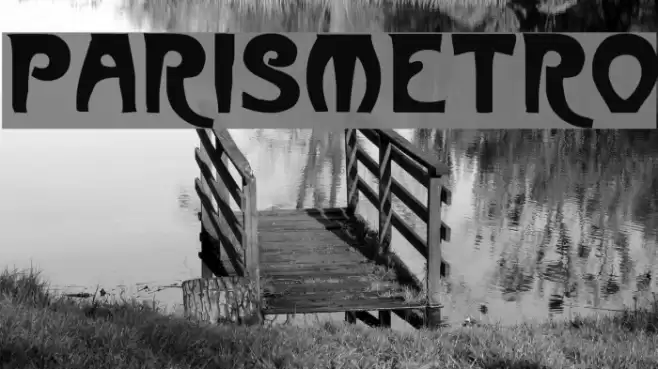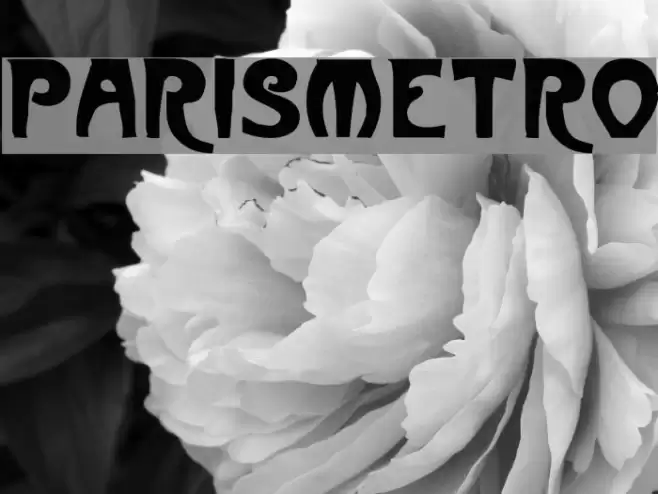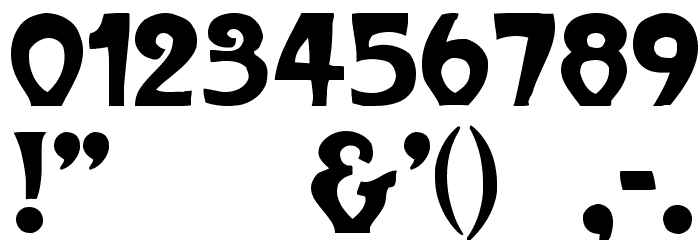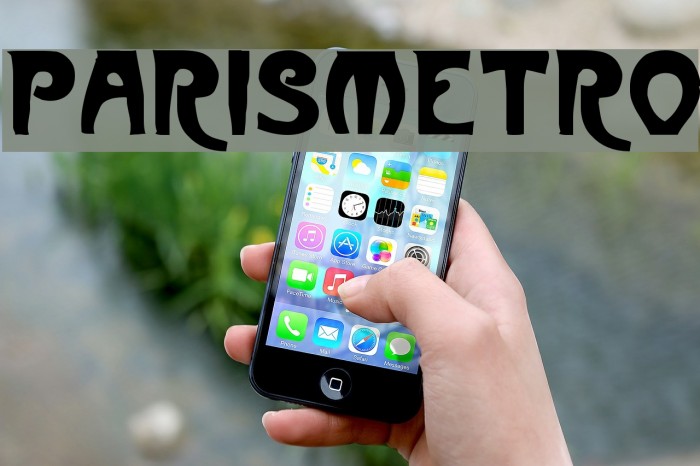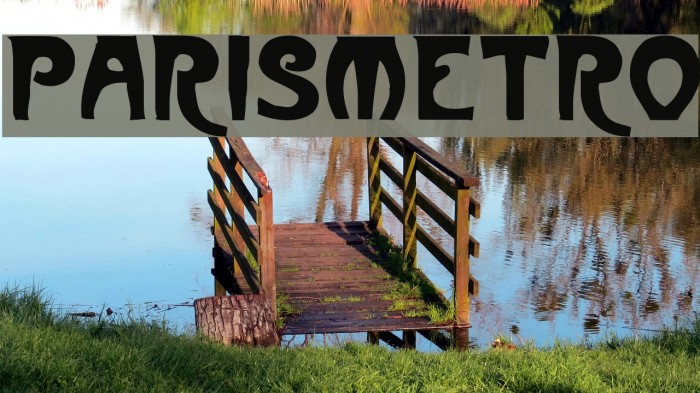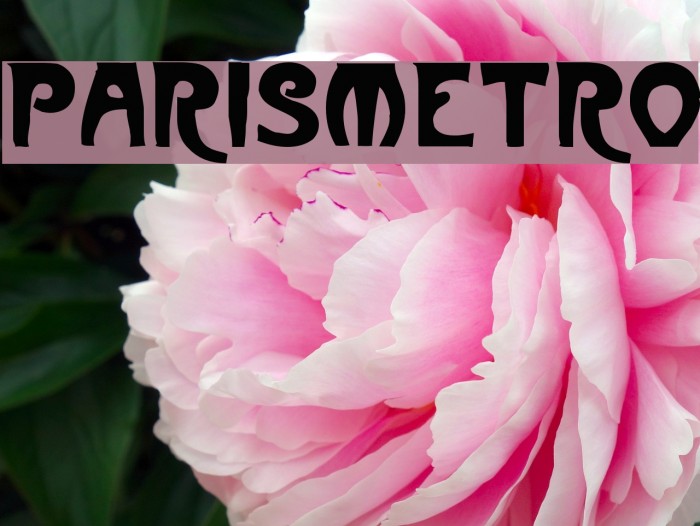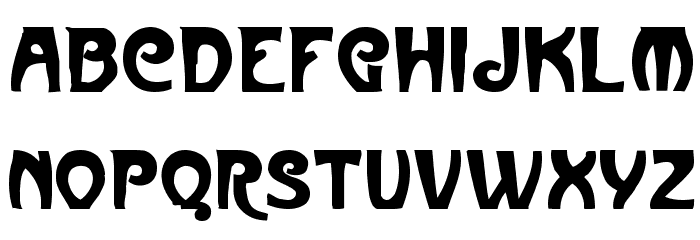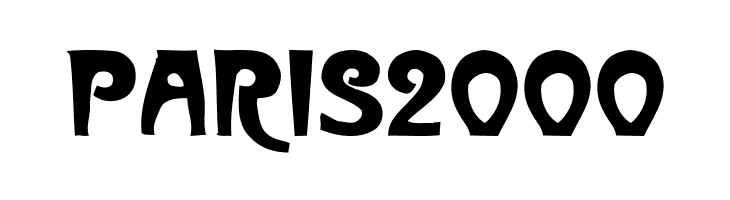
ParisMetro Font
ParisMetro Description
This font features a bold and artistic design with a distinct Art Nouveau influence. The characters are characterized by their thick, flowing lines and unique, decorative elements that evoke a sense of movement and elegance. The uppercase letters have a strong presence with their bold strokes and intricate curves, while the lowercase letters maintain a consistent style, offering a harmonious balance. The numerals and special characters are equally stylized, adding to the overall cohesive look. This font is perfect for projects that require a touch of vintage charm and artistic flair.
A bold, Art Nouveau-inspired font with decorative, flowing lines from Decorative fonts.
- Proposed Projects: Ideal for vintage posters, artistic branding, and decorative signage.
- Overall Style: Vintage
- Use Case: Logos, Posters, Signage